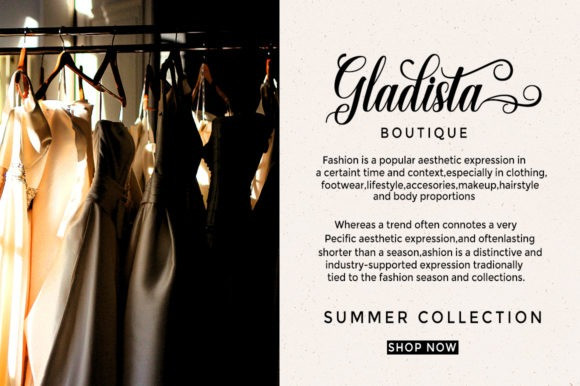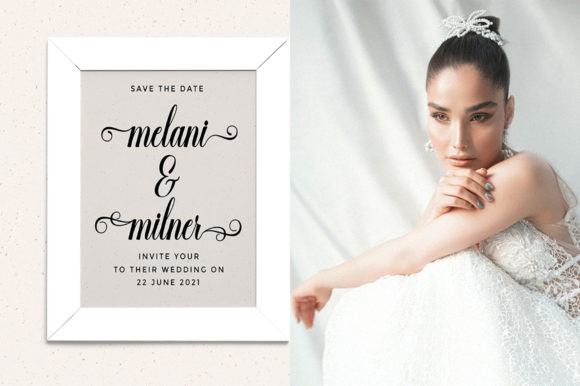
Leadent Calligraphy Font
Leadent Script is a modern calligraphy font. Leadent a beautiful for logotype, website header, fashion design,wedding card design and any more. Leadent comes with elegant style, It also comes as a Blessed font, It contains a full set of lower & uppercase letters, a large range of punctuation, nume Leadent